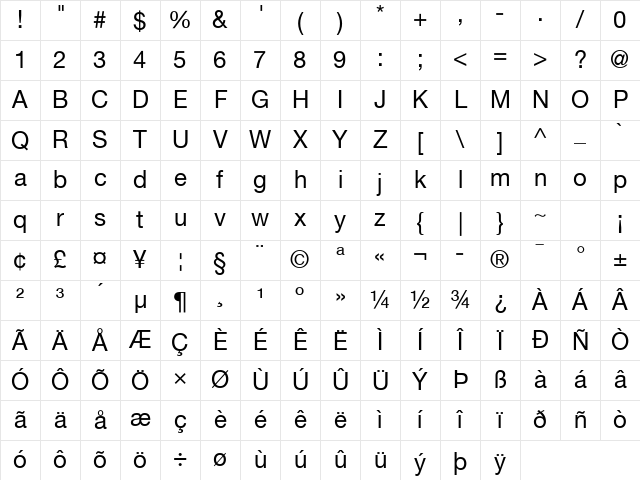
Helvetica 55 Roman Regular
Design Context for Helvetica 55 Roman
Helvetica 55 Roman is a composed and adaptable typeface that performs quietly and consistently across a wide range of design contexts.
Pro Tip: Use Helvetica 55 Roman in both headline and body roles to test its range before committing to a single application.